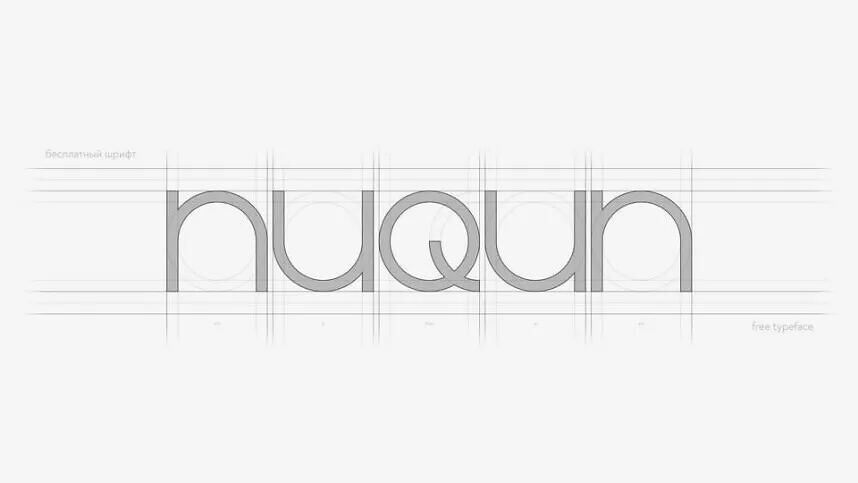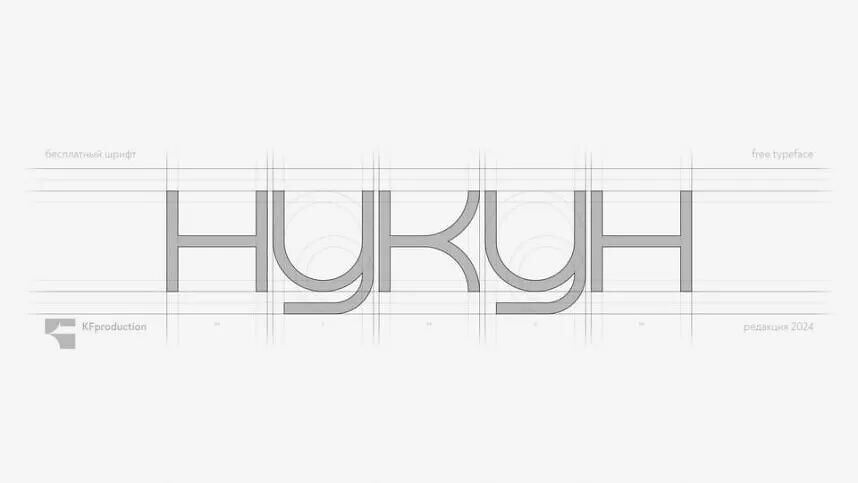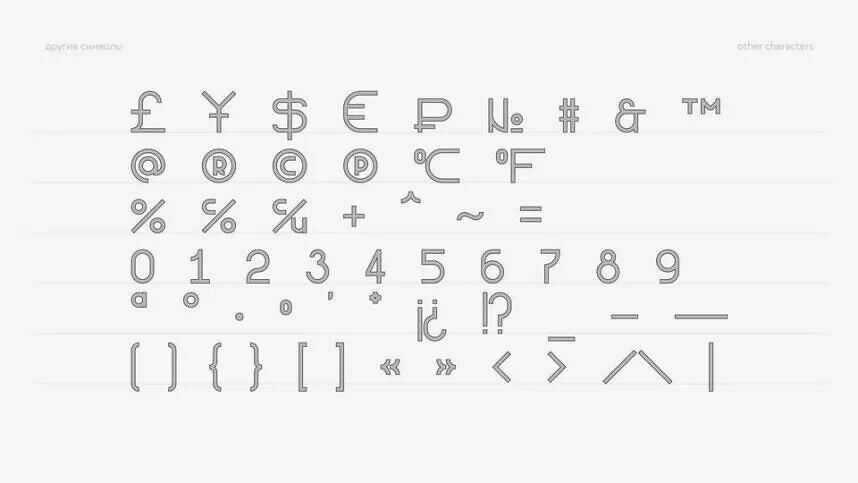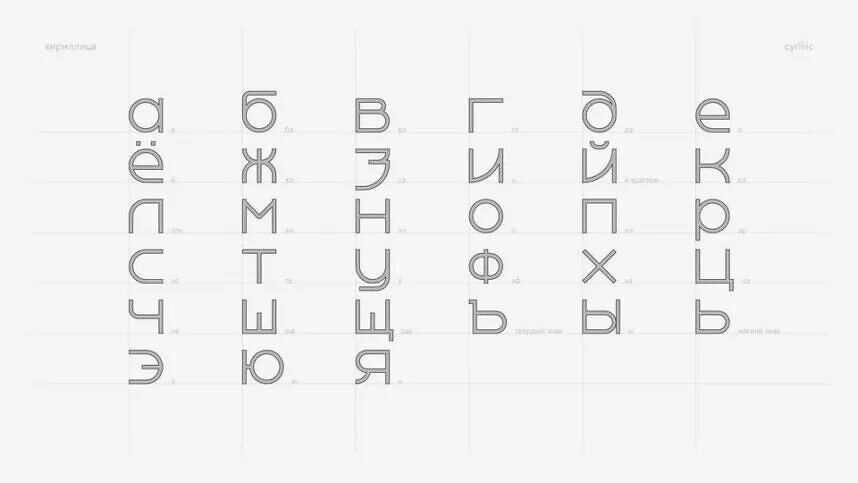
Nuqun Font is a modern geometric sans-serif typeface that adds clarity and balance to designs. Its clean, circular shapes create a calm atmosphere, making it suitable for contemporary projects.
With precise geometry and Cyrillic support, it’s ideal for branding, interfaces, and multilingual designs. The font’s logical structure gives text a neat appearance, providing a confident visual impact for modern identities, minimal compositions, and bilingual projects.